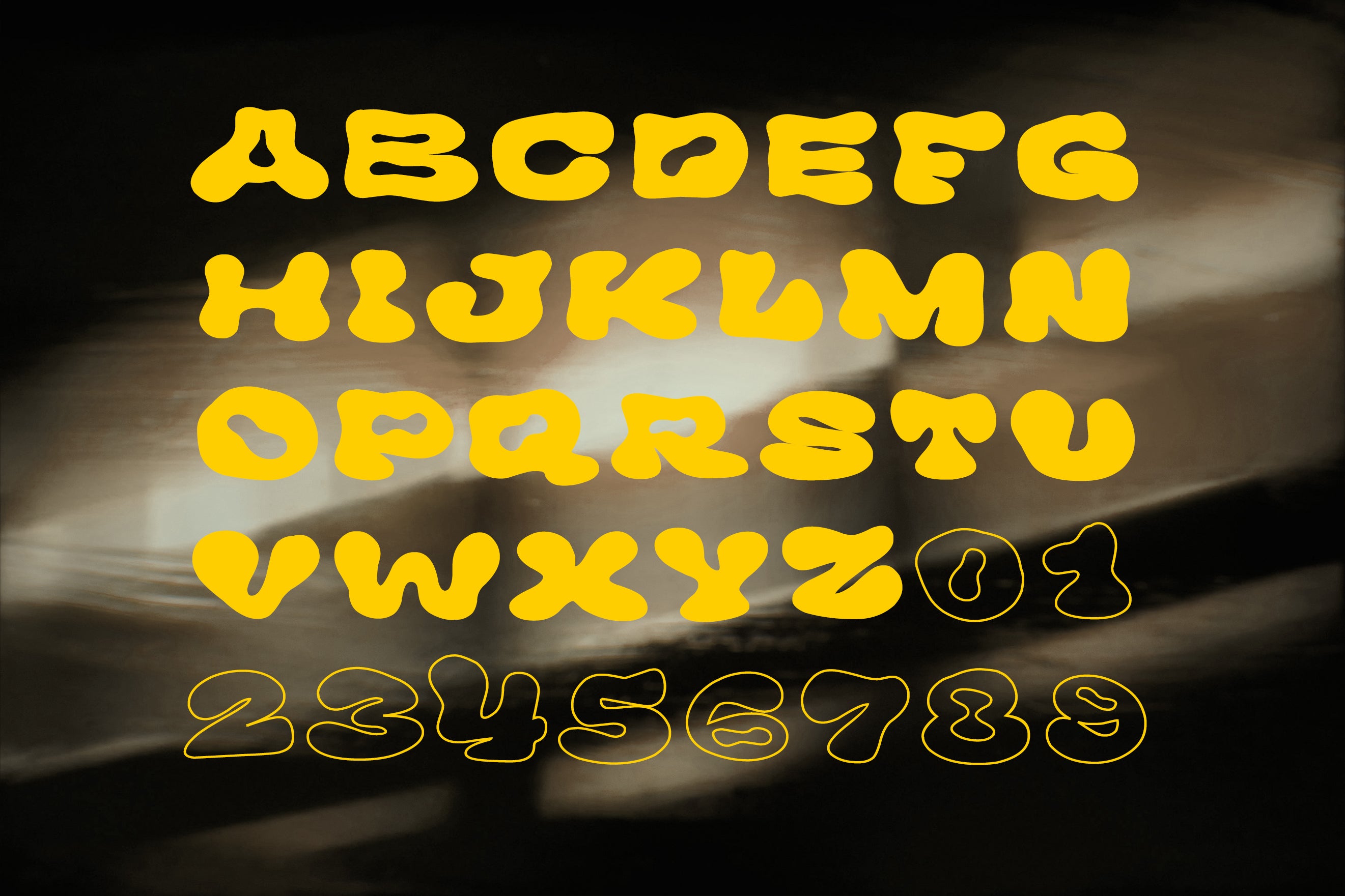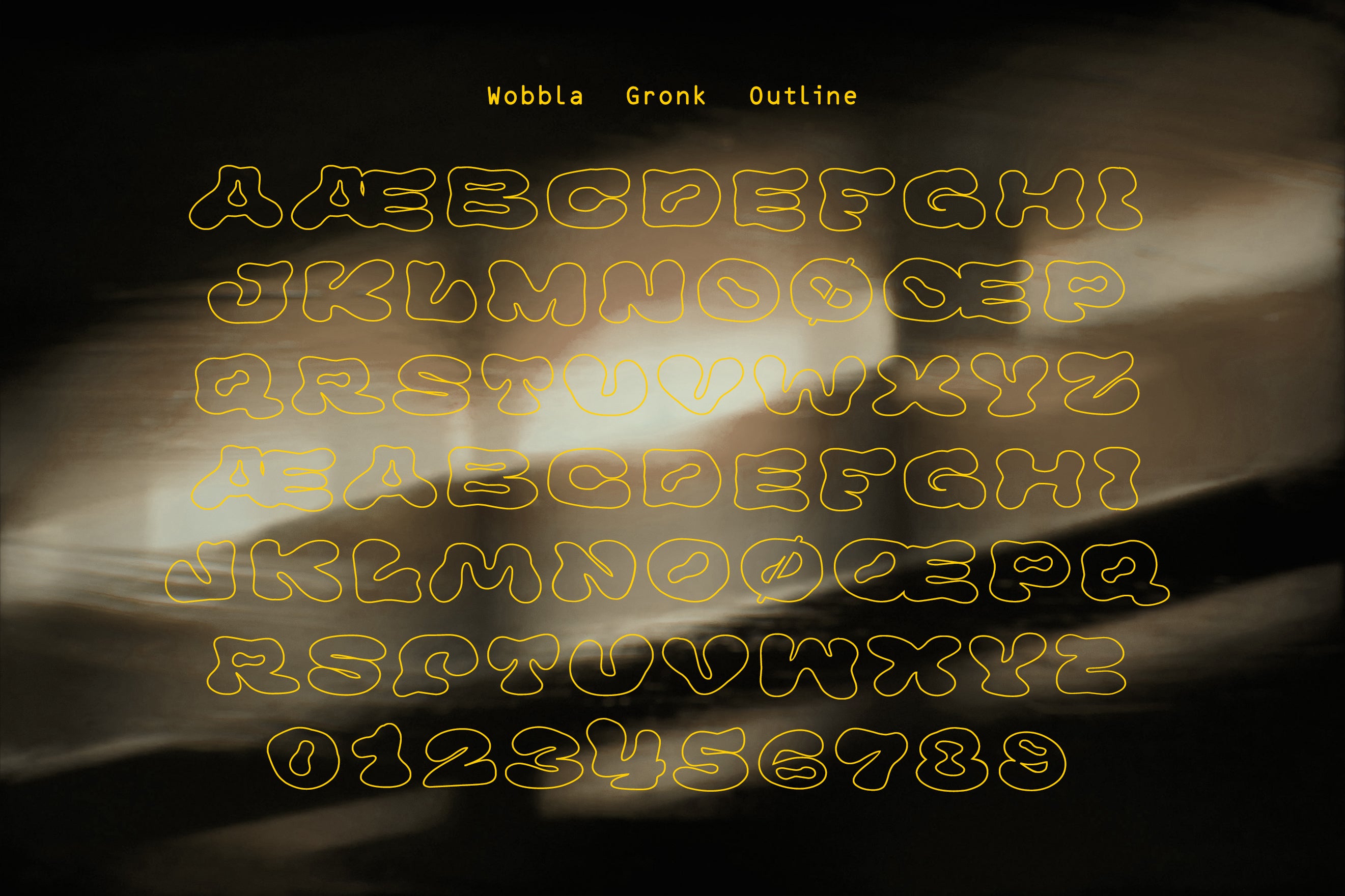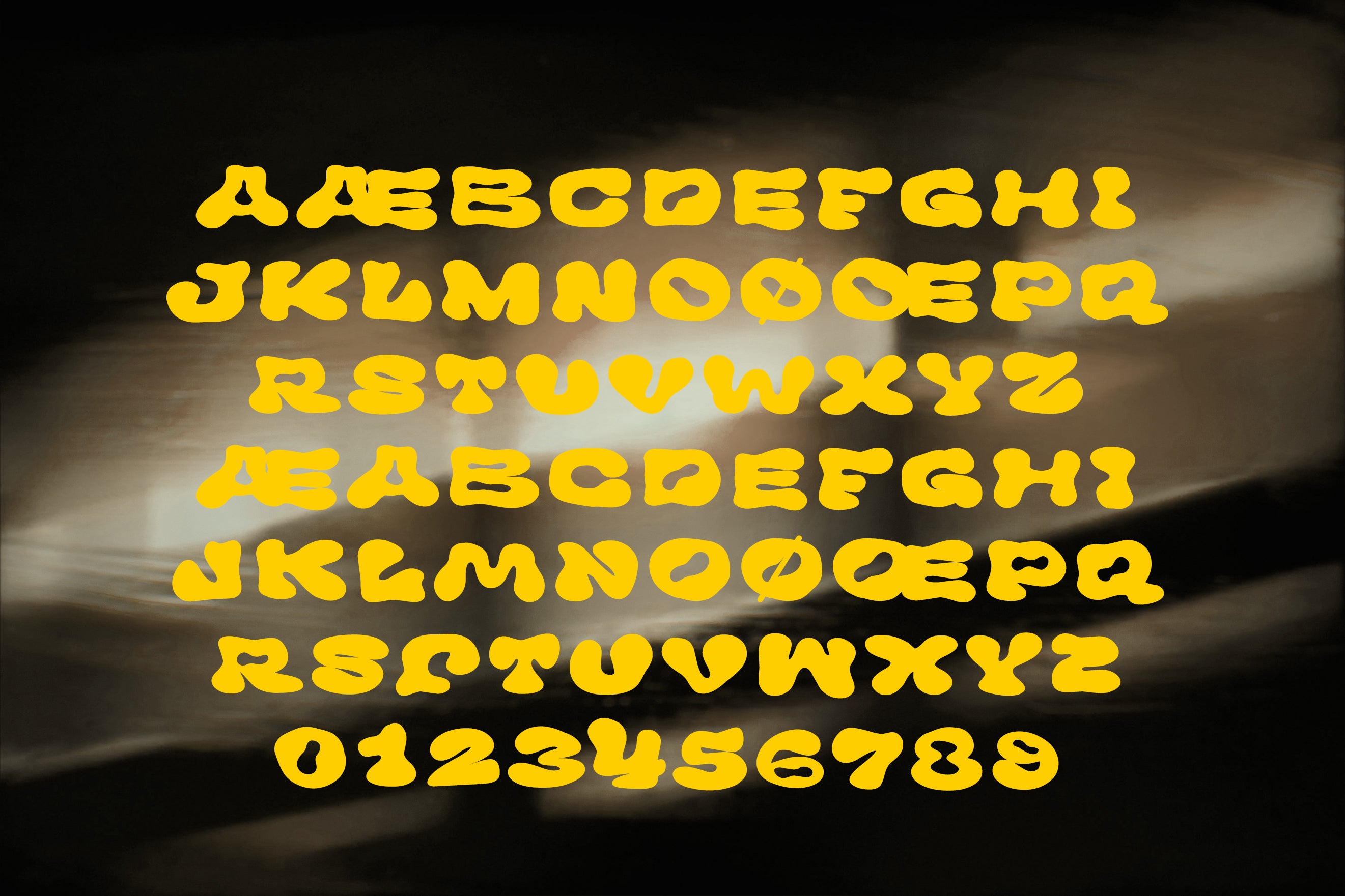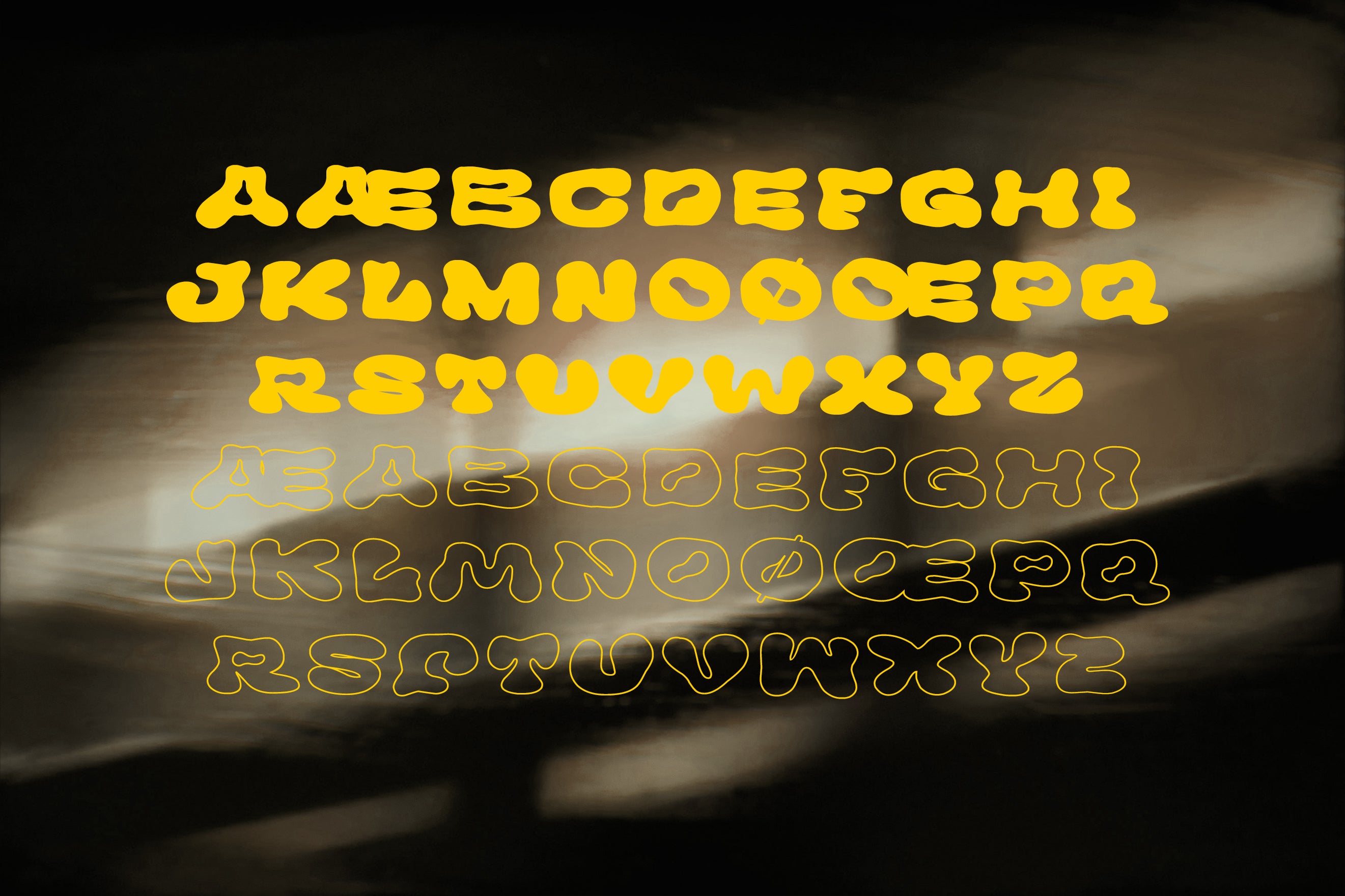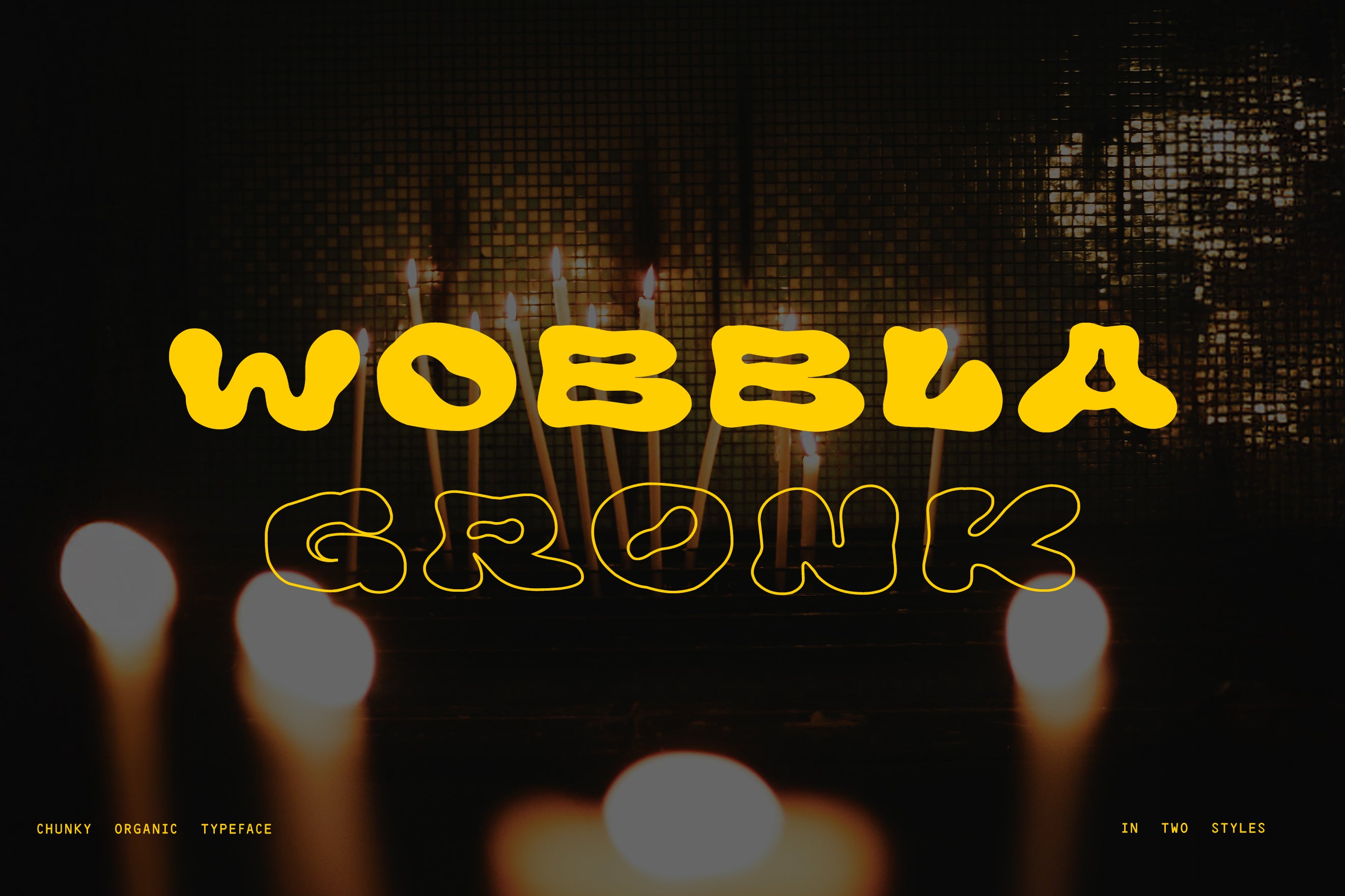
Wobbla Gronk Regular
About the Typeface
Wobbla Gronk is a quick and fun new blobby bubble letter font, in two styles. It is inspired by the stylings of great modern lettering artists, and hopefully perfect for your logos and signs. It comes as a standard filled font, as well as an outline version.
Features
For Wobbla Gronk is entirely made out of uppercase letters. The lowercase features an alternate set for many of the characters, which may or may not be made out of flipped, mirrored, and rotated versions of other letters in the alphabet. There's a full set of numbers there, and we've also added a few slash and bar letters, for example O, L, and J.
One thing you will notice that is missing from Wobbla Gronk: punctuation! That's right, no punctuation, no special symbols or accents. However, if you need accents, punctuation, or special characters, Wobbla Gronk pairs well with our Expressionista font.